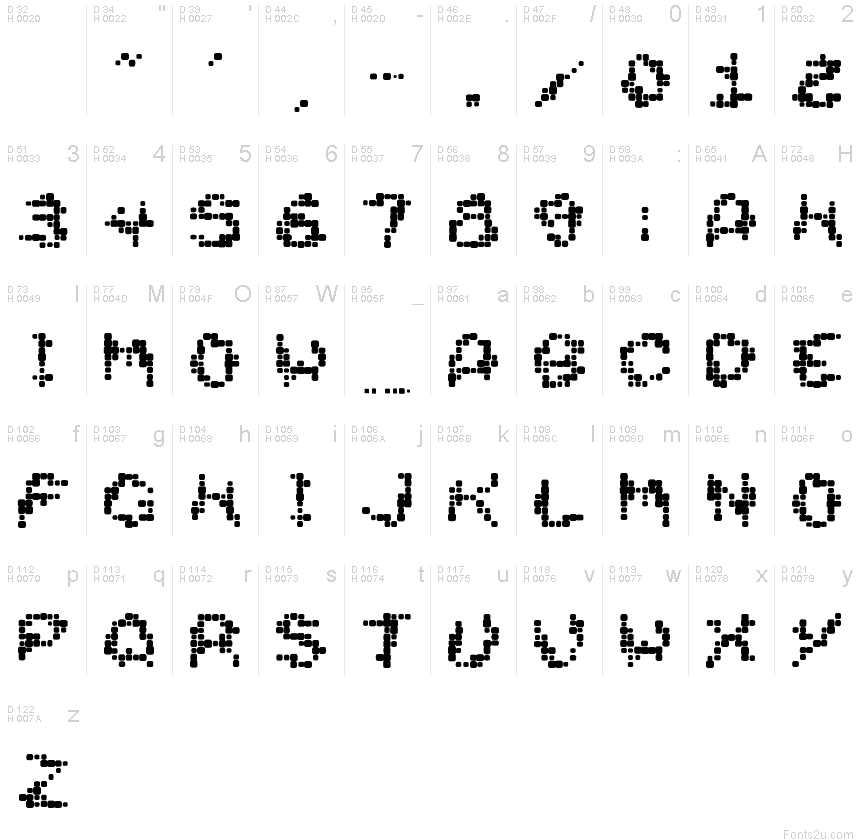
DirtyHead
DirtyHead font by WhoAmI Design is a free digital display font; this dotted typeface reads like an LED sign made from chunky ink stamps. Each letter is built from tight round “pixels,” giving your words a gritty, lo-fi sparkle that stays legible even when it feels a little hacked together. The rhythm is bouncy and mechanical, with just enough irregularity to keep it human.
Using DirtyHead shines on arcade posters, sci‑fi UI mockups, glitchy album covers, tech event flyers, game title screens, scoreboard-style graphics, and streaming overlays. Set it a touch larger than usual so the dot grid breathes, and pair this free font with a calm sans like Inter or Helvetica for body copy.